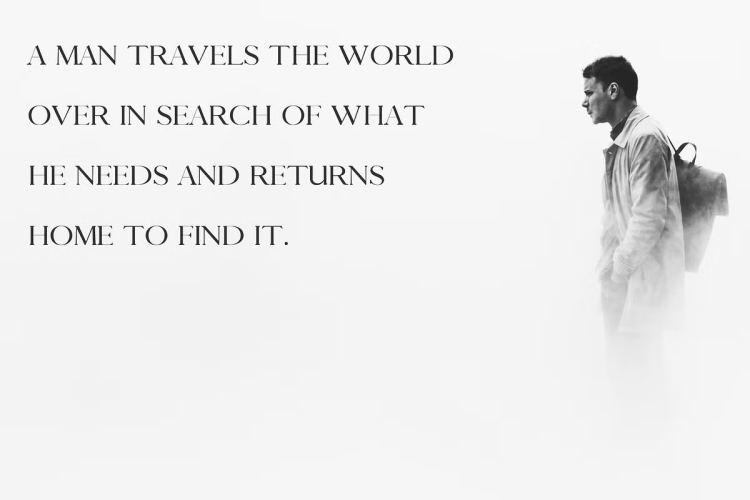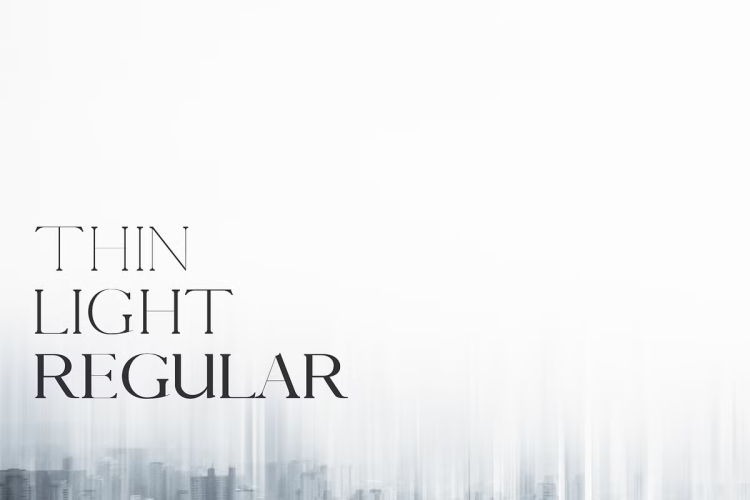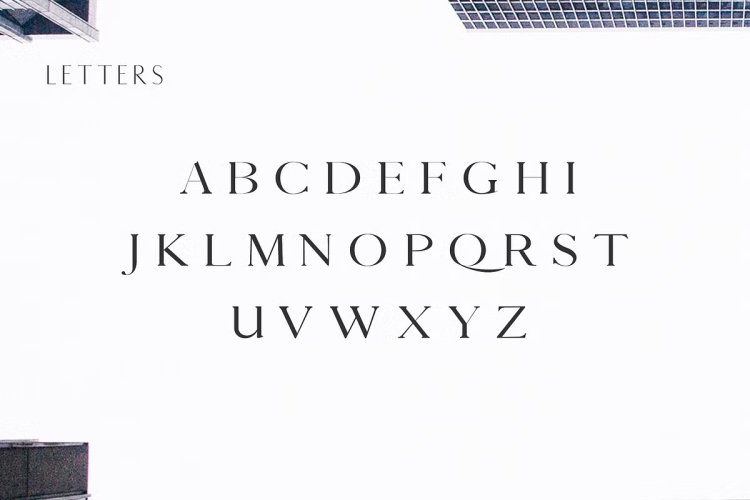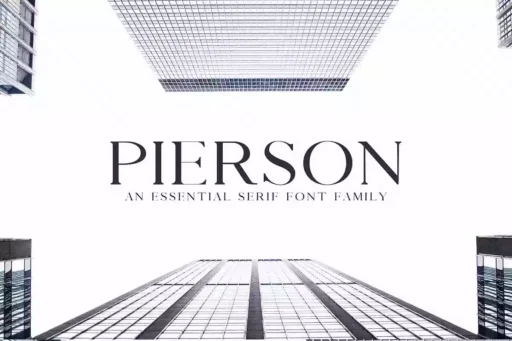
Pierson Font
Pierson is an elegant serif font by Creativetacos that comes in three weights with a set of basic glyphs and symbols with Latin extended characters.
This font is suitable for any project, be it a headline, poster, branding and packaging, presentations and logos, quotes and titles, magazine headings and layouts, websites and advertisements, invitations, books, and more. For your projects, both the digital and the print, Pierson is a style and professionalism that will improve the readability of your designs.
Where Pierson Font works best
Pierson Font gives long-form text a classic, trustworthy rhythm — ideal for magazine spreads, annual reports and book interiors.
Pair Pierson Font with generous letter-spacing for wordmarks in fashion, hospitality, wine and jewellery branding.
Use Pierson Font for slide titles in Keynote, PowerPoint or Google Slides to add authority without looking dated.
What is Pierson Font good for?